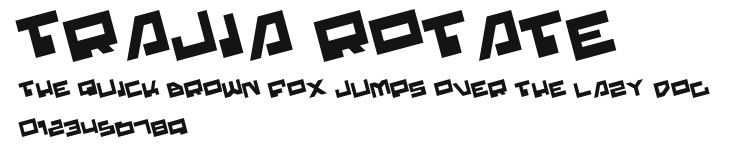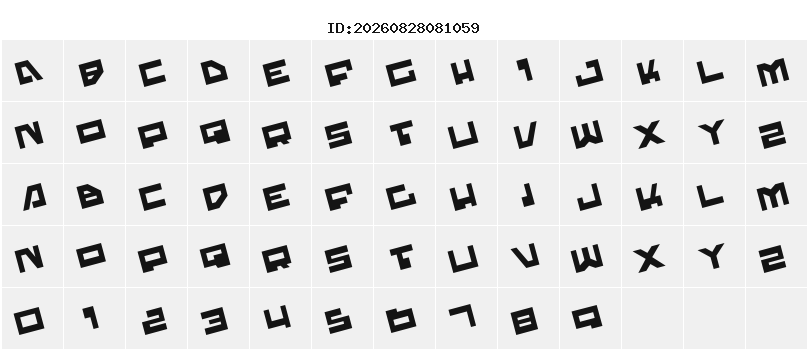
Trajia Rotate Preview
• Font Name: Trajia Rotate
• Font Style: Rotate
• Font ID: TrajiaRotate: 2008
• Full Font Name: Trajia Rotate
• Version: 1.0; 2008
• PostScript Name: TrajiaRotate
About Trajia Rotate.ttf
Trajia Rotate.ttf is a modern, elegant sans-serif font designed for ultimate readability and visual harmony. Perfect for branding, headlines, web design, and print materials.